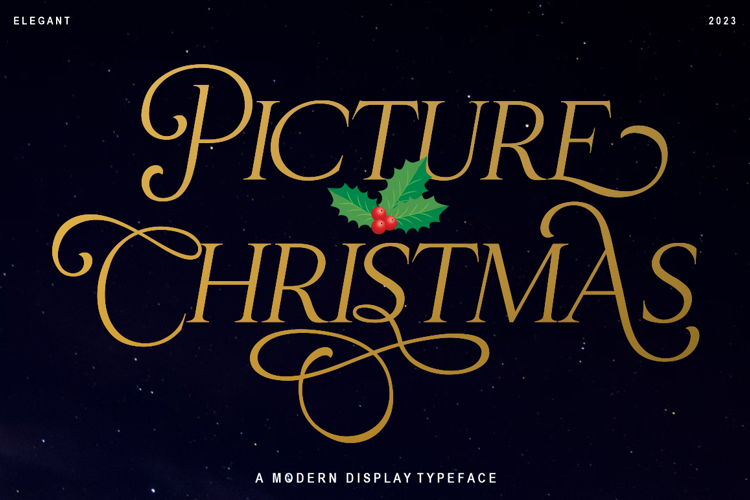
Christmas Picture Font
About Christmas Picture Font
Introducing, Christmas Picture Typeface. A classical and fun serif italic version. It's created specially for the Christmas Spirit.
Christmas Picture is a great design choice this Xmas season for inspirational quote designs, logo designs, simple and classy Logos, web font, branding, product packaging, and much more. This font is PUA-encoded, which means you can easily access all of the glyphs!